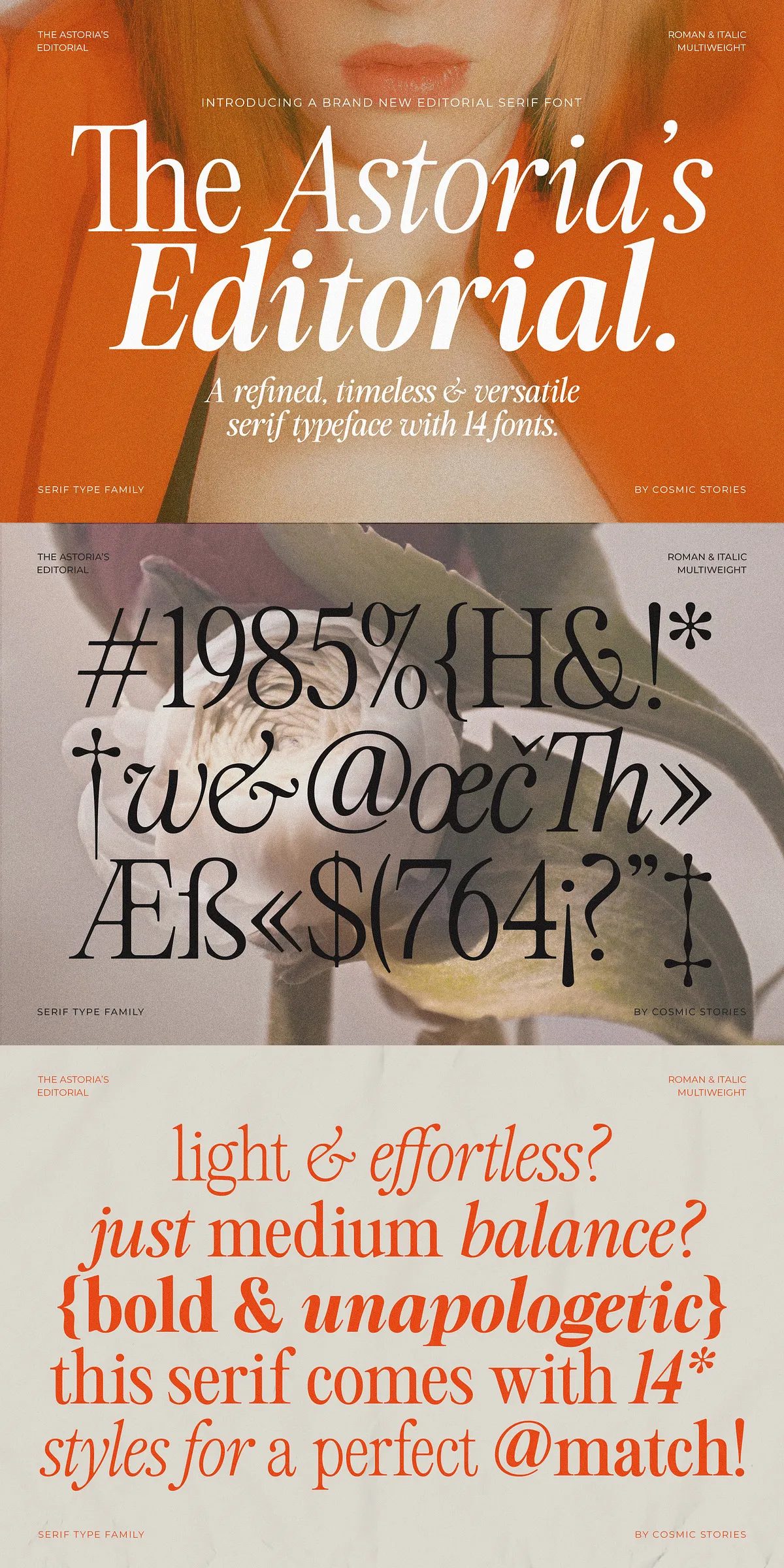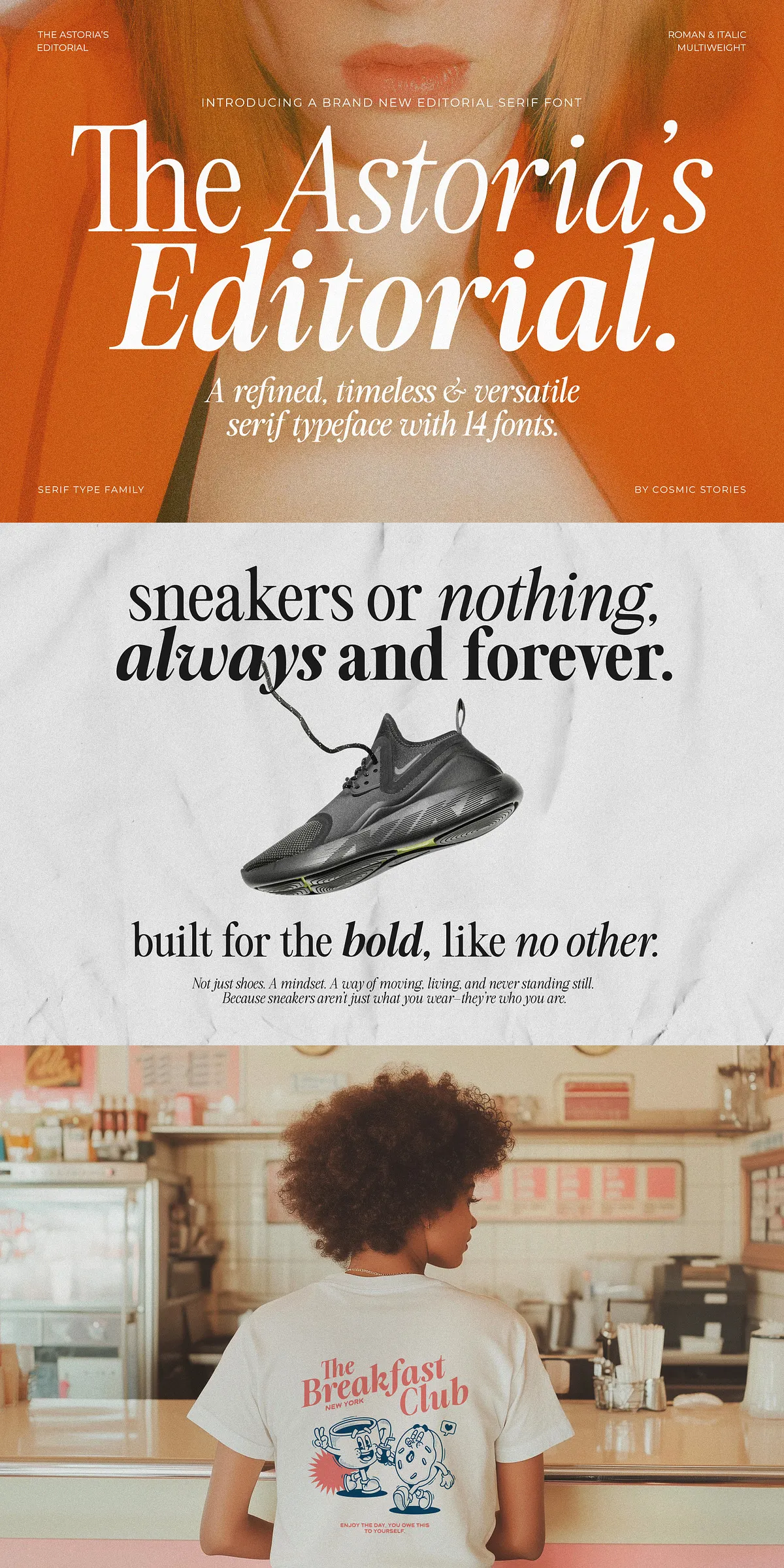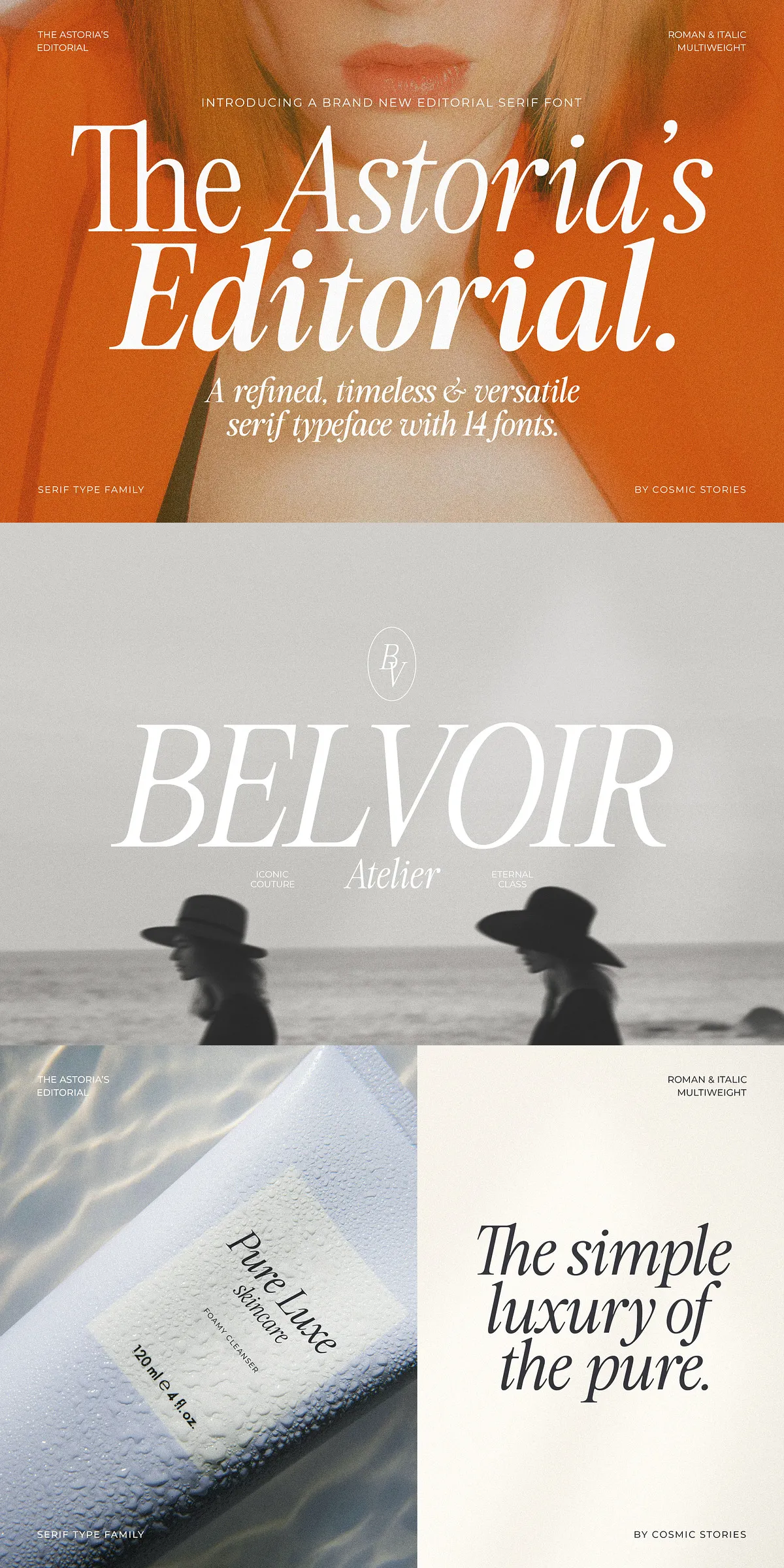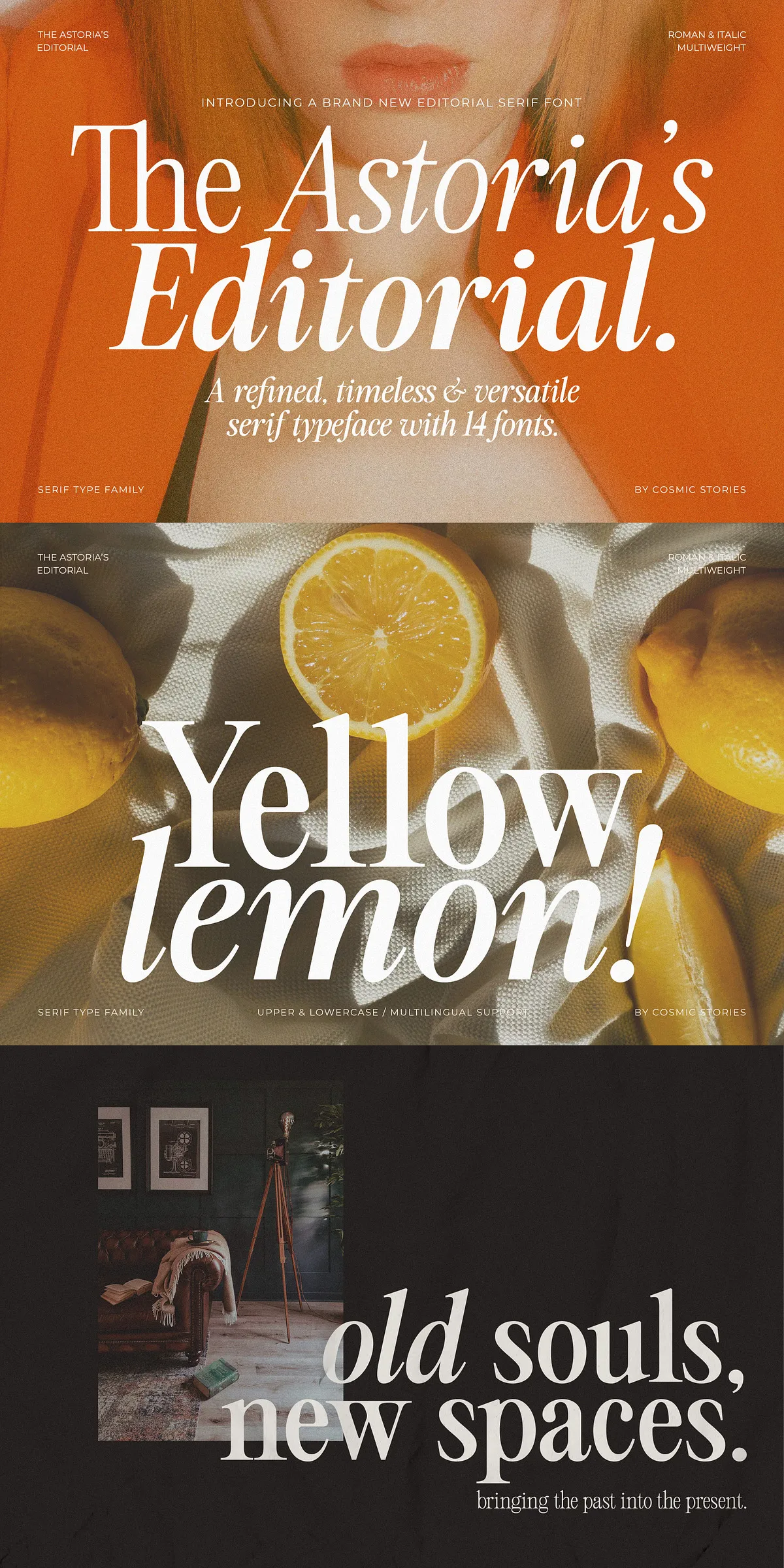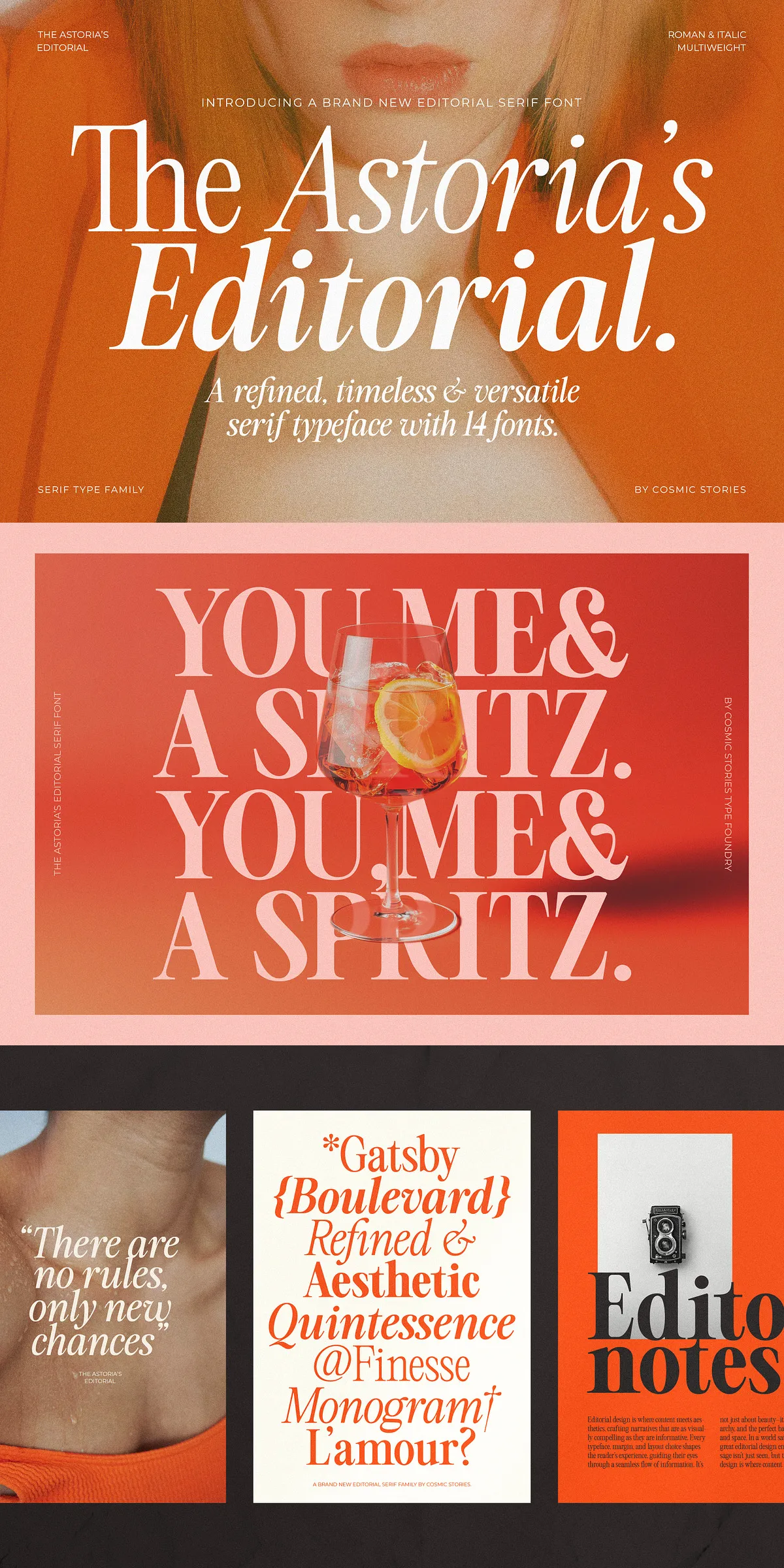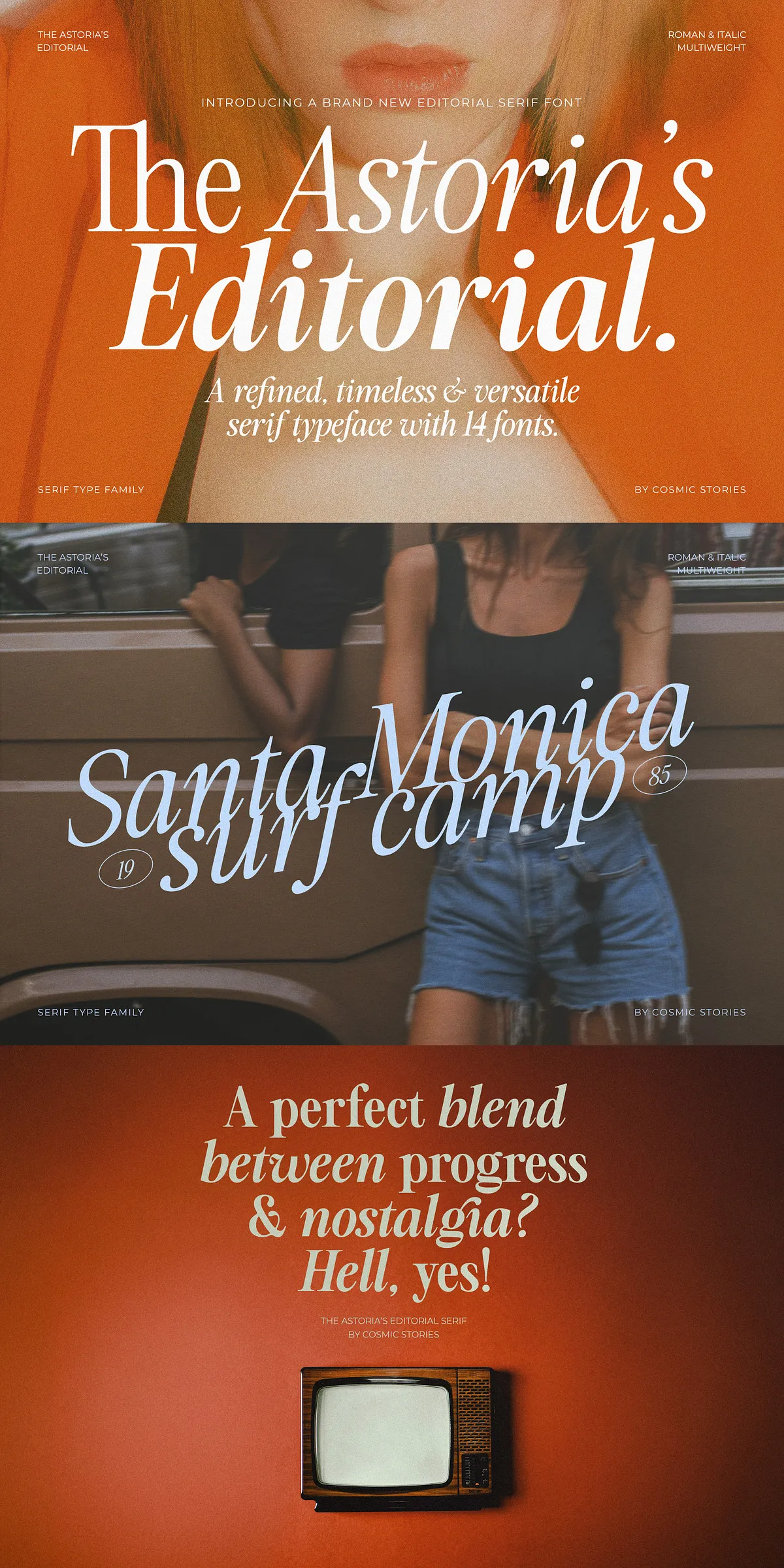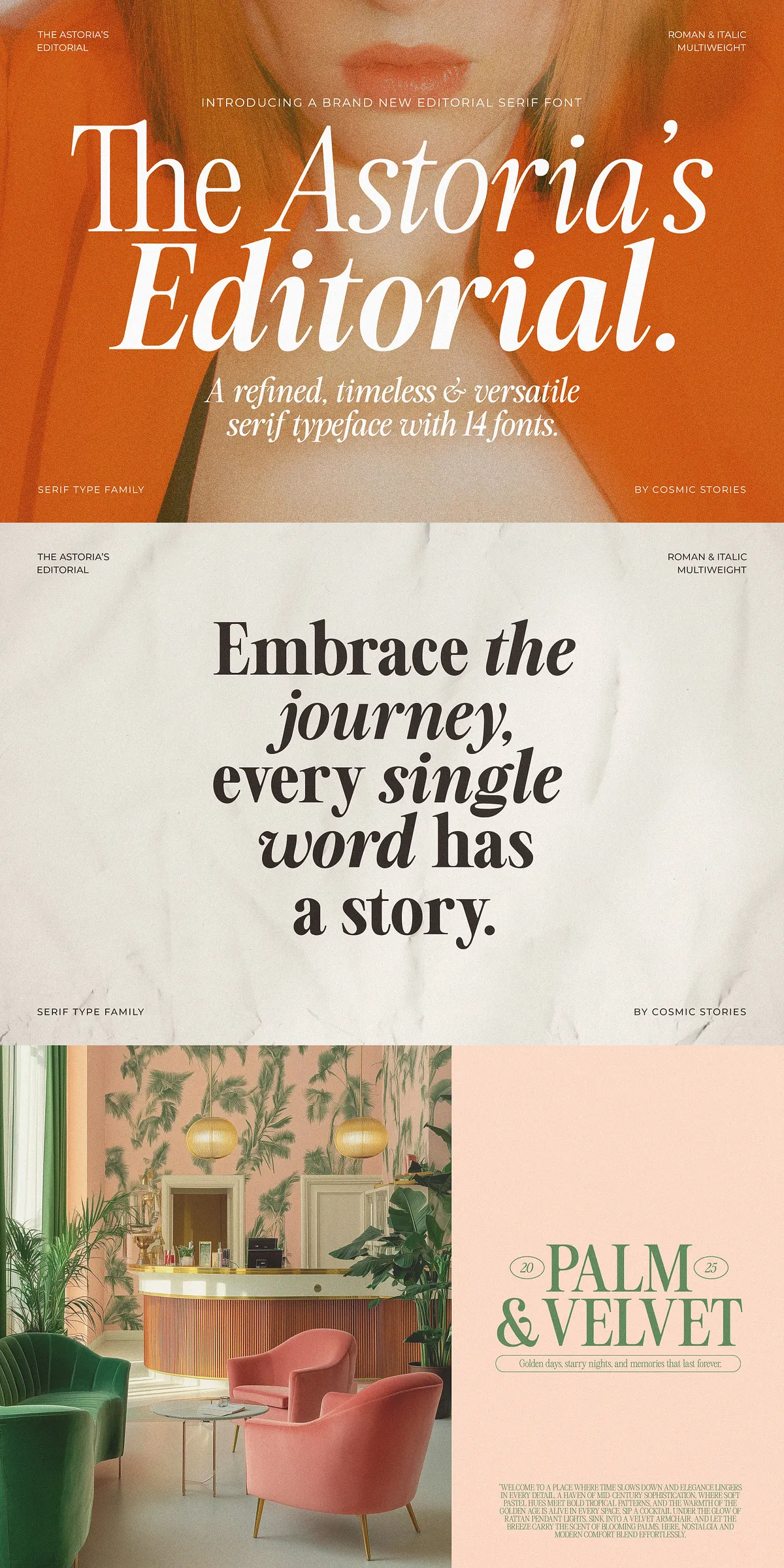
Step into the spotlight with The Astoria’s Editorial Serif — a masterfully crafted editorial font that redefines the fusion of vintage soul and modern precision. Designed for creators who want impact, personality, and lasting elegance, this typeface doesn’t just communicate — it commands attention. Inspired by classic newspaper layouts, 1950s signage, and high-end publishing, The Astoria’s Editorial brings a nostalgic heartbeat to contemporary design, delivering a unique voice that stands out in any project.
Unleash the Power of 14 Distinct Styles — From Delicate to Dramatic
Why choose one style when you can have 14? The Astoria’s Editorial offers a full spectrum of typographic power with **7 finely tuned weights**, each paired with a matching italic variant. Whether you’re crafting delicate body text for an art magazine or unleashing a bold headline on a product launch poster, this font adapts with grace and confidence.
- Light — perfect for editorial subheads or minimalist branding.
- Regular — ideal for balanced layouts and professional documents.
- Semibold — for emphasis without sacrificing elegance.
- Bold — make headlines roar with authority.
- Black — command attention in luxury packaging and display typography.
With the full range of weights and italics, your creative expression knows no limits. Use them interchangeably or strategically to create stunning contrast, rhythm, and visual hierarchy in every design.
Refined Ligatures That Elevate Every Line
Attention to detail is everything — and The Astoria’s Editorial delivers. Every ligature is hand-crafted to ensure fluid, natural transitions between characters. The result? Text that doesn’t just read well — it looks like it was written by hand, but with perfect precision. Whether in a flowing serif headline or a dense article layout, these subtle enhancements elevate your typography to a professional standard.
Engineered for Versatility Across Every Project
This is not just another serif font — it’s a design catalyst. The Astoria’s Editorial excels wherever strong typographic storytelling is needed. From editorial design to brand identities, from packaging to digital campaigns, this typeface brings both heritage and modern relevance to every application.
Perfect For:
- High-end magazine layouts — create immersive, elegant reading experiences.
- Heritage brand identities — build trust and sophistication with timeless typography.
- Luxury packaging and product labels — add premium appeal with bold, readable detail.
- Event posters and concert visuals — captivate audiences with retro flair and modern clarity.
- Digital web headers and landing pages — stand out with striking, responsive typography.
- Invitations and premium stationery — bring elegance to every written moment.
The Astoria’s Editorial isn’t just a font — it’s a legacy in the making. It’s for designers who value craftsmanship, who want to tell stories through letters, and who refuse to settle for ordinary. With its bold retro soul and polished modern finish, this typeface gives your design the depth, character, and authority it deserves.